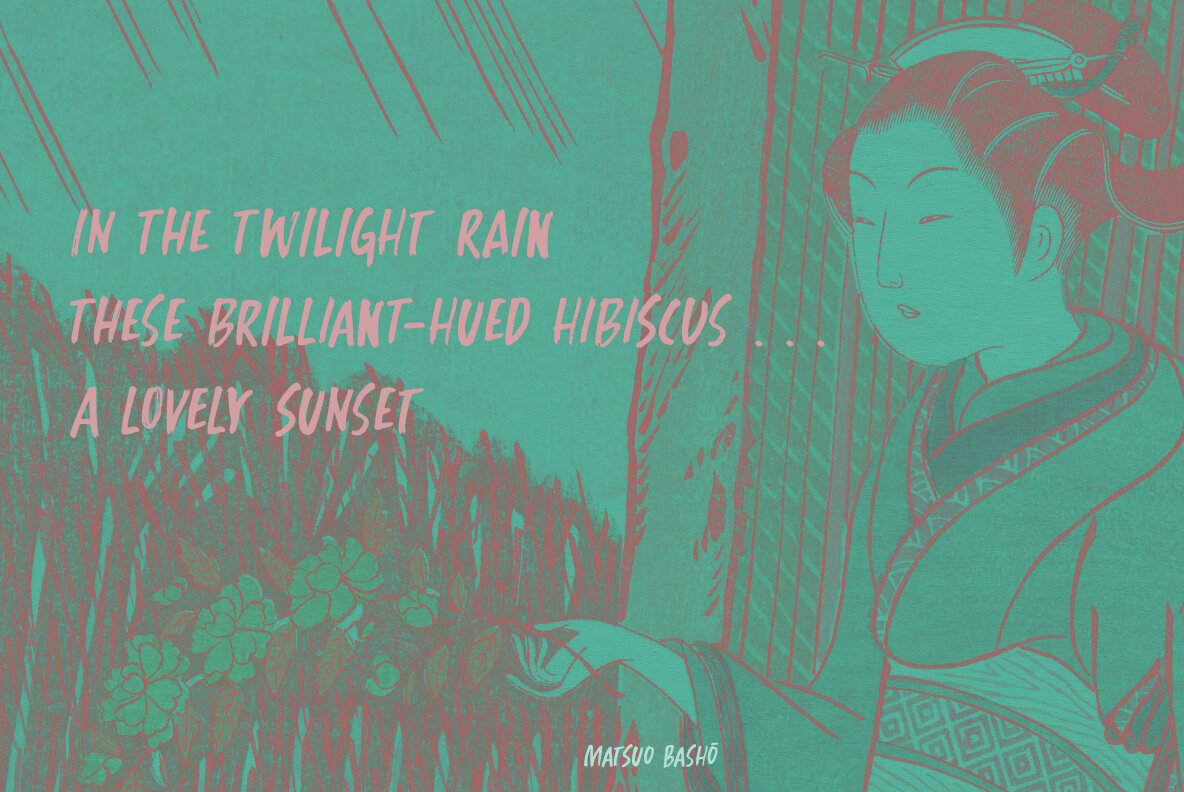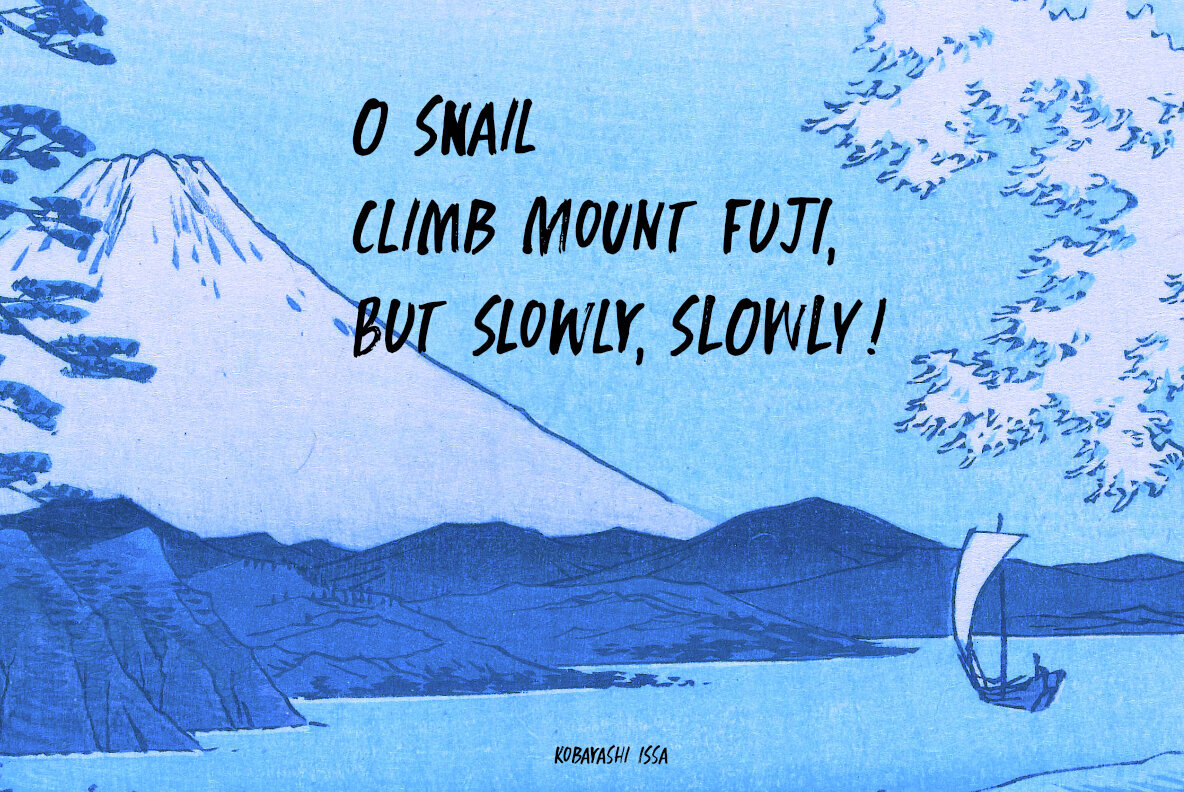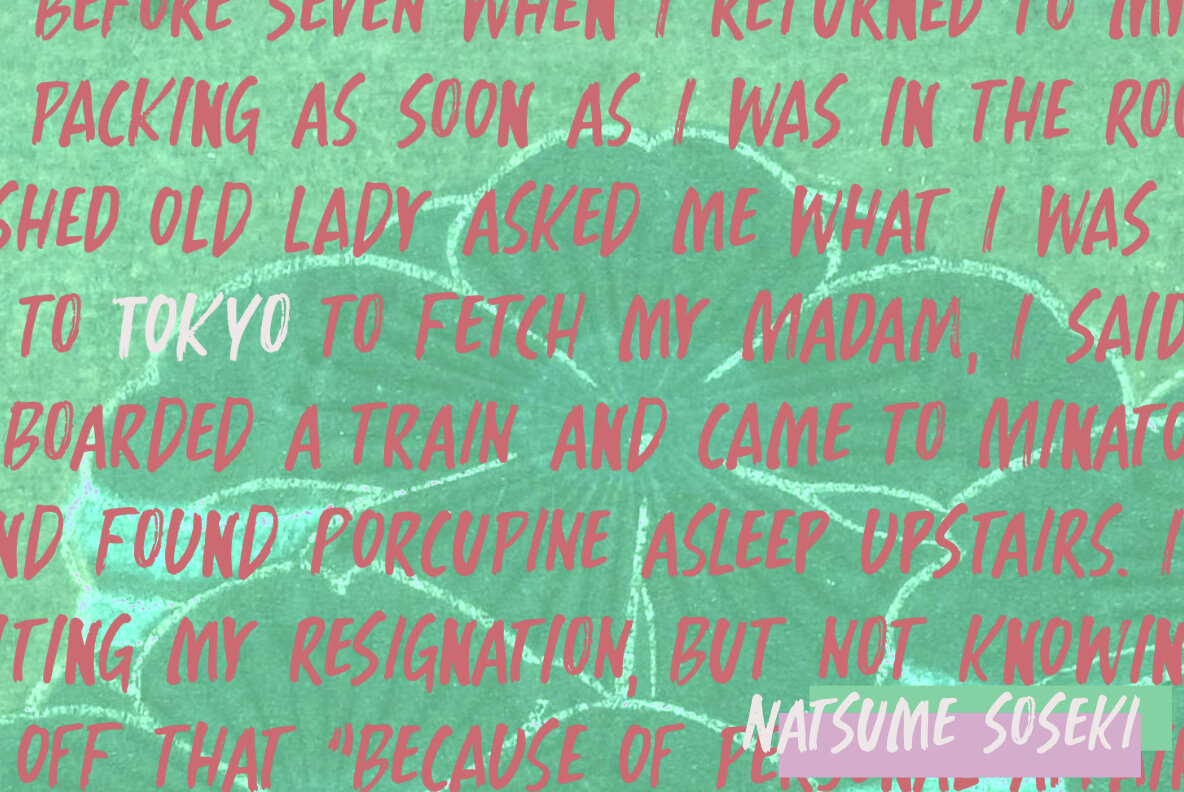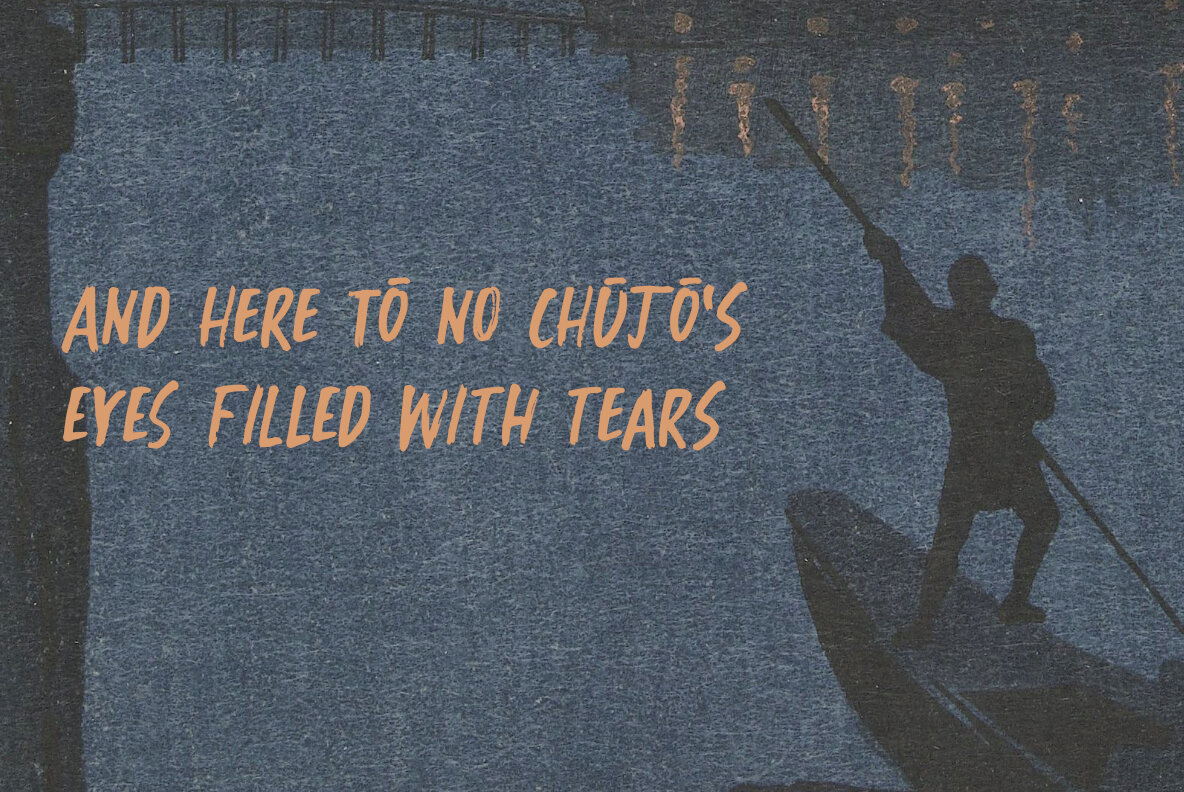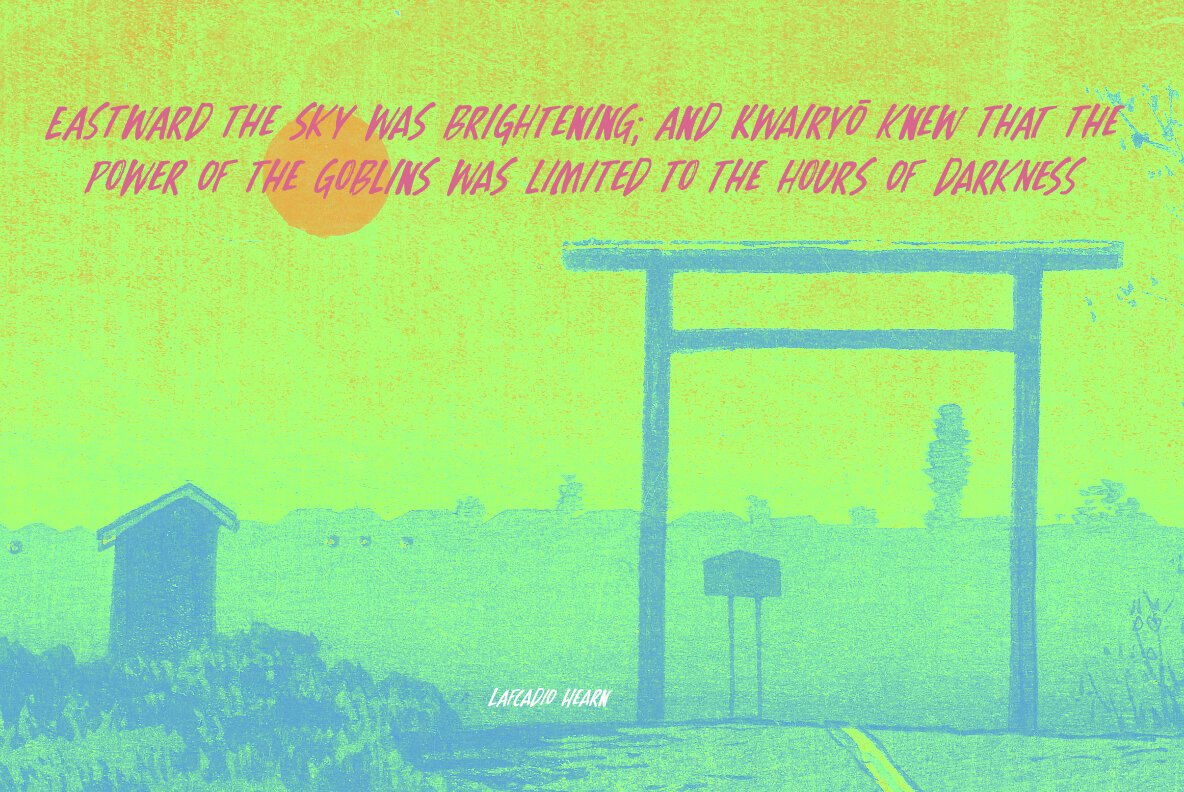
Benjiro Font
Benjiro Regular
Benjiro Italic
Benjiro is a Japanese name for boys. It means ‘peaceful’ or ‘enjoy peace’, which is something we all really need right now. I settled on a Japanese name, as this font was made with ink and a broken bamboo satay skewer. A few years ago, I made my first font with a broken satay skewer and called it Buntaro, which is also a Japanese boys name, so I thought I’d stick to that tradition. Benjiro is a rough, all caps brush font. I used really cheap supermarket skewers, because they break in all the wrong places, making it a joy to work with, as you never know what you’ll end up with! Benjiro comes with extensive language support and a nice set of alternates for the lower case glyphs.